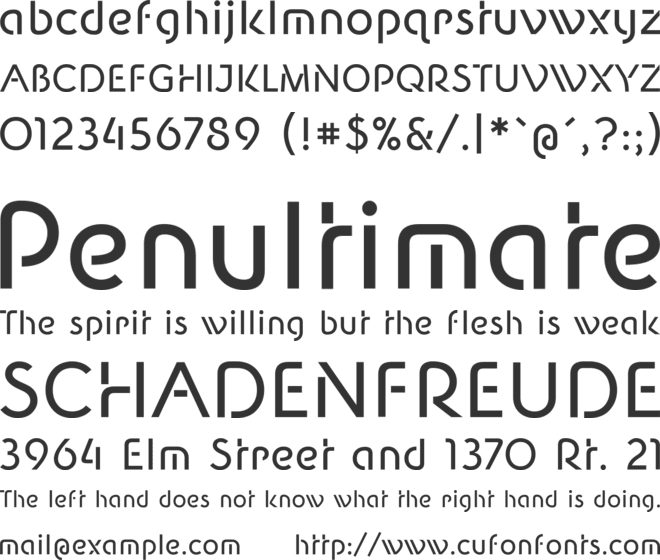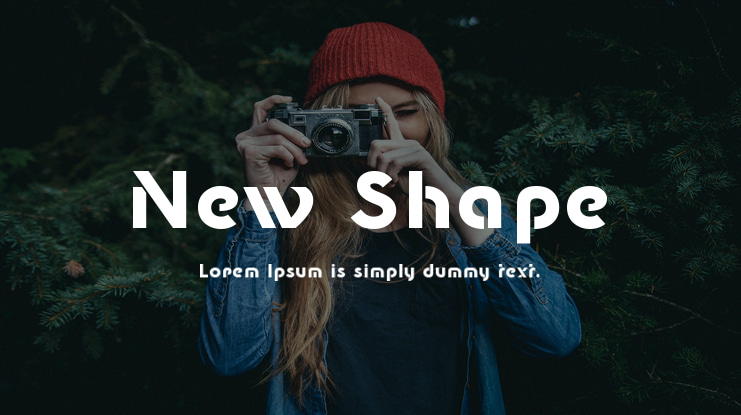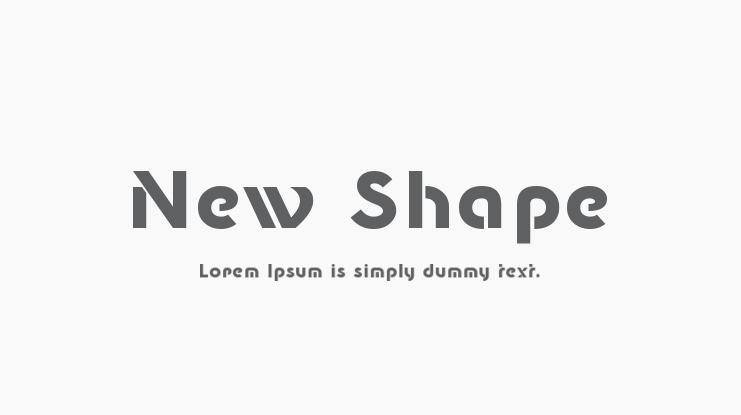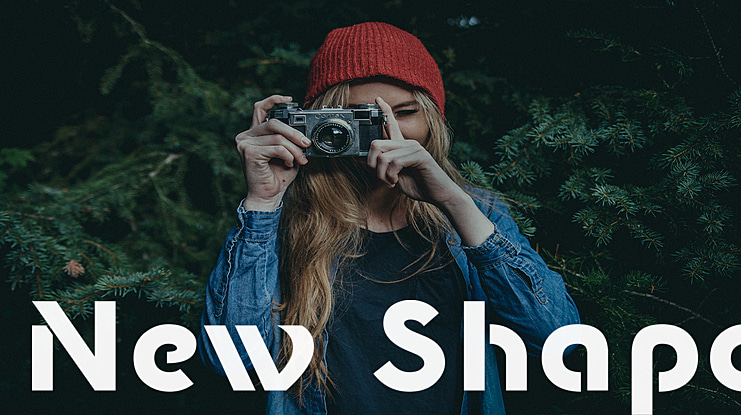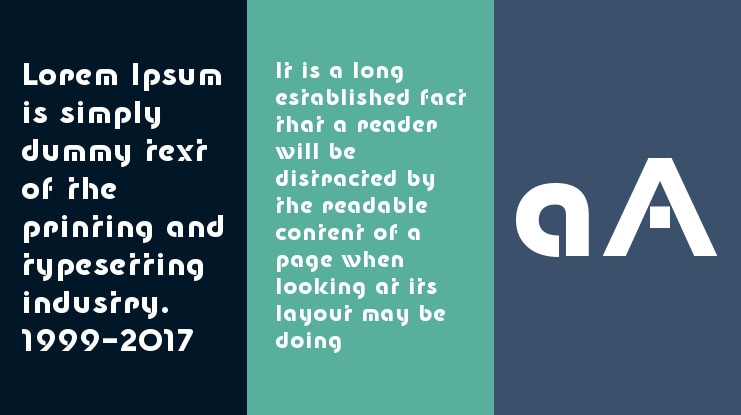
New Shape Font Family
It's mix of my older fonts - generally Round Style with some changes and modifications. I wanted make simply (but not the simpliest one), linear font with some decorative elements, good looking on computer screen for use as default system font. Anyway, it works very well on my linux desktop. :-)